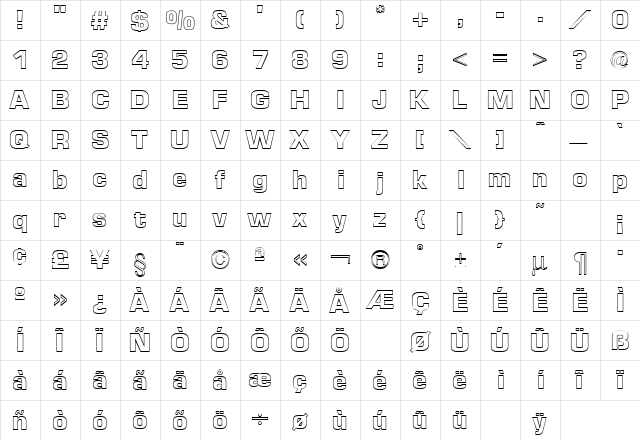
Euro Technic Outline Bold Font Preview
Euro Technic Outline Bold
Design Context for Euro Technic Outline Typeface
Euro Technic Outline channels digital-age aesthetics through its sharp, structured letterforms — ideal for brands that want to signal innovation. The heavy weight commands attention and anchors typographic hierarchies.
Pro Tip: Try Euro Technic Outline with generous letter-spacing in UI labels and navigation — the geometric forms benefit from room to breathe.